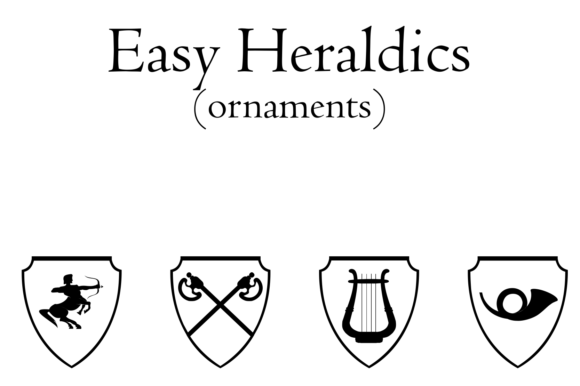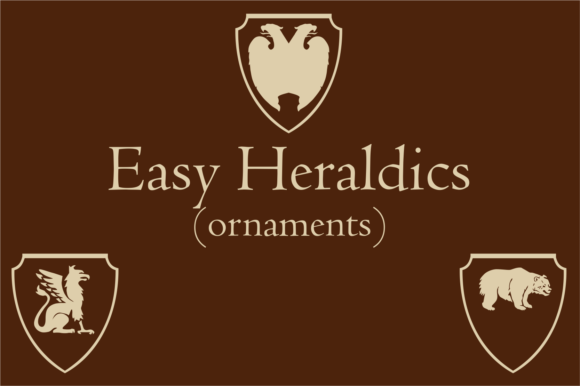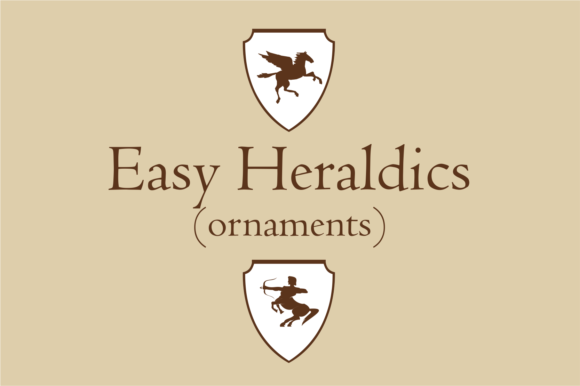
Unlocking the Secrets of Heraldic Design
As a designer, have you ever found yourself stuck on a project, searching for the perfect font to convey the essence of your message? Perhaps you’ve been brainstorming ideas for a logo, only to be foiled by the complexity of traditional heraldic devices. I know I have!
Enter the Easy Heraldics Font, a game-changing solution that brings the beauty of heraldic design to your fingertips. This innovative font combines the classic elements of heraldry, allowing you to create stunning visual representations of your brand’s identity. Whether you’re a seasoned designer or just starting out, the Easy Heraldics Font is an invaluable tool that will elevate your designs and make your creative process a breeze.
Easy Heraldics Font Key Features
- Font Type: A collection of heraldic fonts, ideal for creating coats of arms, crests, and other heraldic designs.
- Size and Resolution: Each font is available in multiple sizes, from 12 to 48 points, and can be scaled to various resolutions, including 72 dpi and 300 dpi.
- Unique Characteristics: The Easy Heraldics Font collection includes a wide range of unique and authentic heraldic symbols, such as lions, eagles, and other mythical creatures.
- Customization Options: The fonts can be customized with various colors, patterns, and effects, allowing users to create unique and personalized designs.
Easy Heraldics Font Review
At first glance, the Easy Heraldics Font seems like a great choice for anyone looking to add a touch of medieval flair to their designs. ✨ The font’s intricately designed letters and symbols are sure to grab attention and add a sense of luxury to any project.
The font’s versatility is another major plus. ✨ It’s perfect for use in logo design, branding, and even traditional heraldic artwork. The font also comes with a wide range of symbols, making it easy to create intricate designs and patterns.
- Intricate lettering and symbol design
- Perfect for logo design, branding, and heraldic artwork
- Wide range of symbols and design options
- Can be difficult to read at smaller font sizes ⚠️
- May not be suitable for use in modern, minimalist designs ⚠️
- Lack of bold and italic font styles ⚠️
Overall, I think the Easy Heraldics Font is a great choice for designers who are looking to add a touch of elegance and sophistication to their projects. While it may have some limitations, the font’s unique design and versatility make it a valuable addition to any design arsenal.
Easy Heraldics Font: A Practical Application Guide
Getting the Most Out of Easy Heraldics Font
For optimal results, use the Easy Heraldics Font in combination with other design elements, such as coats of arms, crests, and other heraldic symbols.
Experiment with different font sizes, colors, and styles to create unique and visually appealing designs.
The Easy Heraldics Font is commonly used for:
- Heraldic designs and coats of arms
- Family crests and genealogy projects
- Historical and cultural designs
- Wedding invitations and other formal events